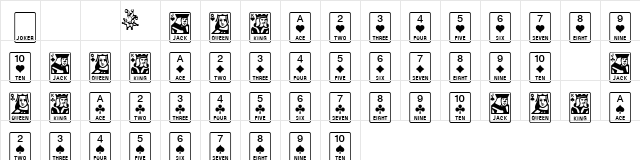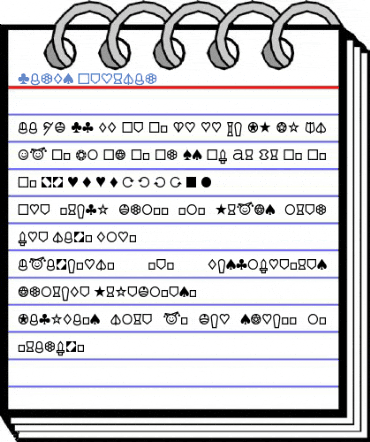
Complete LinotypeGamePiEnglishCards Roman glyph index. Displaying only characters natively supported by LinotypeGamePiEnglishCards Roman font.
LinotypeGamePiEnglishCards is a composed and adaptable typeface that performs quietly and consistently across a wide range of design contexts.